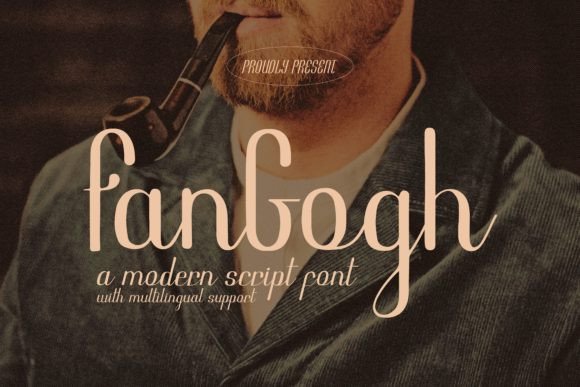
Fangogh Font: Elevate Your Designs with a Modern Script
In the world of typography, fonts play a crucial role in conveying the tone and personality of a design. When it comes to modern script fonts, Fangogh stands out as a versatile and stylish choice. In this article, we’ll explore the Fangogh font, its features, and how it can elevate your designs, from logos and branding projects to homeware designs, product packaging, and more.
What is Fangogh Font?
Fangogh is a modern script font that exudes elegance and sophistication. Its fluid lines, beautiful swashes, and refined letterforms make it perfect for designs that require a touch of luxury and creativity. The font’s unique character set and advanced typographic features ensure that it can be used for a wide range of applications, from high-end branding projects to personal stationery.
Fangogh Font: Suitable for a Wide Range of Design Projects
Fangogh | Modern Script is suitable for any project that requires a modern script taste. Here are some design applications where Fangogh can shine:
- Logos and Branding Projects: Fangogh’s elegant and sophisticated design makes it perfect for logos, wordmarks, and branding projects that require a touch of luxury.
- Homeware Designs: Add a touch of elegance to your homeware designs, such as kitchenware, bedding, and wallpaper, with Fangogh’s refined script.
- Product Packaging: Fangogh’s modern script design makes it ideal for product packaging, including labels, tags, and packaging materials.
- Mugs and Drinkware: Add a personal touch to your mugs, cups, and other drinkware with Fangogh’s beautiful script.
- Quotes and Posters: Fangogh’s elegant design makes it perfect for quotes, posters, and other display materials that require a touch of sophistication.
- Shopping Bags: Elevate your shopping bag designs with Fangogh’s modern script, perfect for luxury brands and retailers.
- T-Shirts and Apparel: Fangogh’s stylish design makes it suitable for t-shirts, hoodies, and other apparel that require a touch of elegance.
- Book Covers: Add a touch of sophistication to your book covers, journals, and notebooks with Fangogh’s refined script.
- Name Cards and Invitation Cards: Fangogh’s elegant design makes it perfect for name cards, invitation cards, and other personal stationery.
- Greeting Cards: Add a touch of luxury to your greeting cards, including Christmas cards, birthday cards, and wedding cards.
- Labels and Watermarks: Fangogh’s modern script design makes it suitable for labels, watermarks, and other design elements that require a touch of elegance.
- Special Events: Fangogh’s sophisticated design makes it perfect for special events, including weddings, galas, and corporate events.
Fangogh Font: Advanced Typographic Features
Fangogh font comes with advanced typographic features that make it versatile and flexible. Some of its notable features include:
- Swashes: Fangogh’s swashes add a touch of elegance and sophistication to your designs.
- Ligatures: The font’s ligatures ensure that your text flows smoothly and beautifully.
- Stylistic Alternates: Fangogh’s stylistic alternates provide you with multiple design options, allowing you to customize your text to suit your design needs.
Design Tips: Getting the Most out of Fangogh Font
Here are some design tips to help you get the most out of Fangogh font:
- Use Fangogh as a headline font: Fangogh’s elegant design makes it perfect for headlines, titles, and other display materials.
- Pair Fangogh with a sans-serif font: Pairing Fangogh with a sans-serif font can create a beautiful contrast and add visual interest to your designs.
- Experiment with swashes: Fangogh’s swashes can add a touch of elegance and sophistication to your designs. Experiment with different swash styles to find the one that works best for your project.
Fangogh font is a versatile and stylish modern script font that can elevate your designs, from logos and branding projects to homeware designs, product packaging, and more. Its advanced typographic features, elegant design, and flexibility make it perfect for a wide range of applications. Whether you’re a designer, artist, or DIY enthusiast, Fangogh font is a great choice for any project that requires a touch of luxury and sophistication.